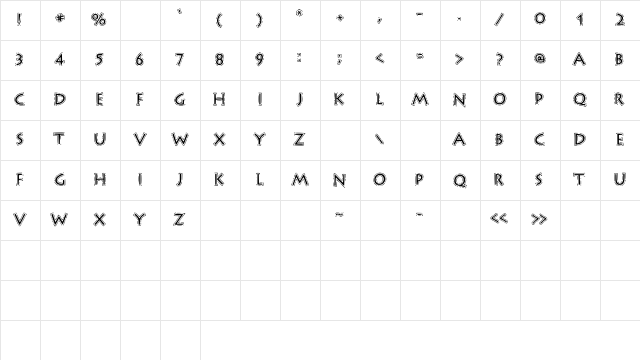
OutlineStorm Medium
Design Context for OutlineStorm Typeface
OutlineStorm is built around its visual character rather than neutral utility — its distinctive forms are designed to make an impression at display sizes.
Font Pairing: Pair with a clean neutral sans-serif for body copy to let OutlineStorm's character lead without overwhelming the composition.
Pro Tip: Treat OutlineStorm as the centrepiece of your typographic hierarchy. One strong heading set in a decorative face can carry an entire layout.